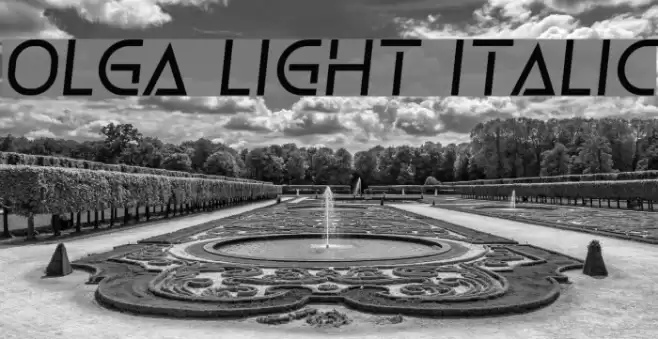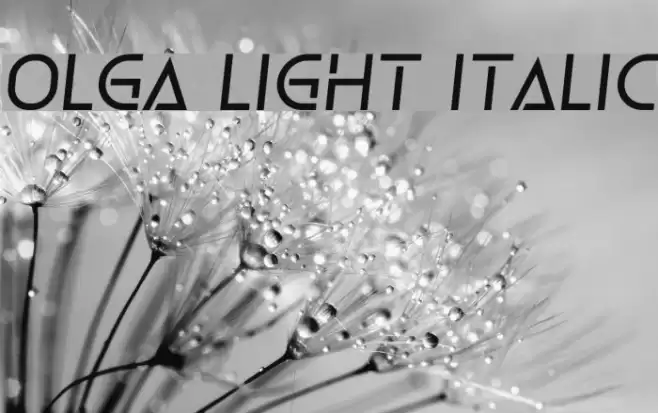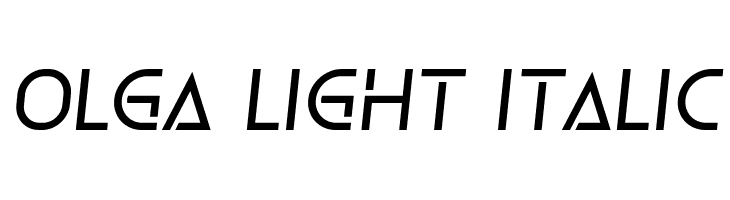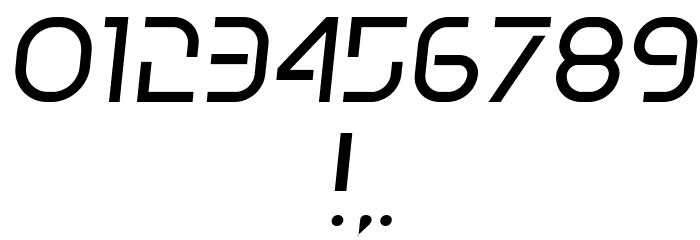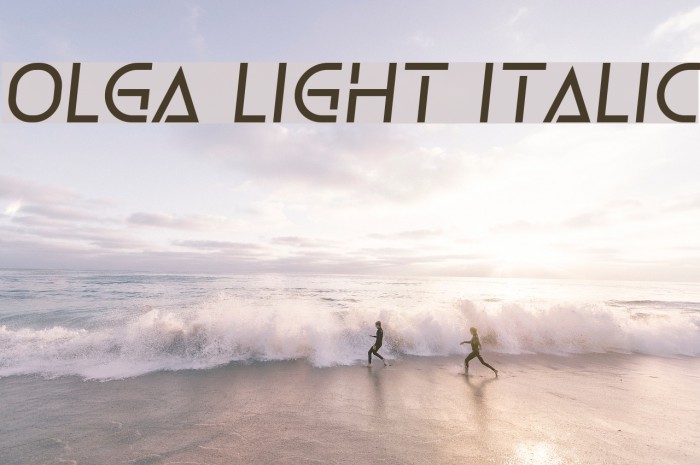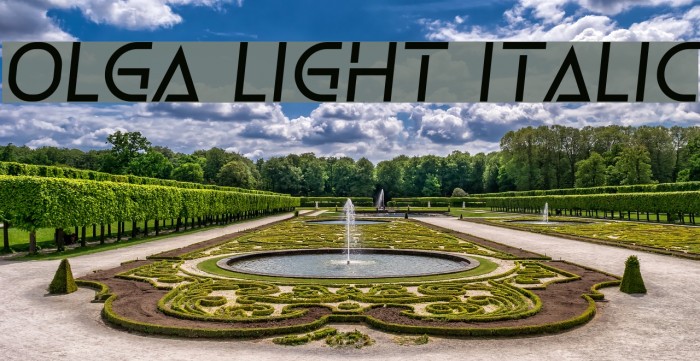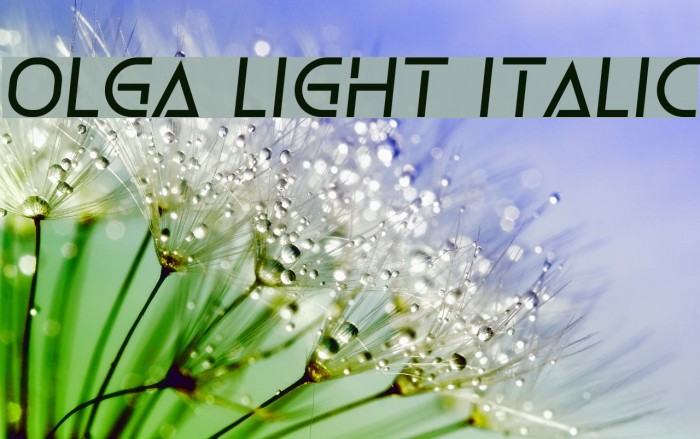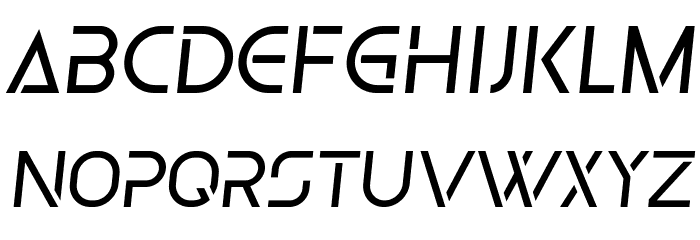
Olga Light Italic Font
Olga Light Italic Description
This font features a sleek, modern design with a distinct italic slant, giving it a dynamic and forward-moving appearance. The characters are crafted with precision, showcasing clean lines and a geometric structure. The uppercase and lowercase letters maintain a consistent style, with a slight variation in stroke width that adds subtle contrast. The numerals are designed to complement the alphabet, maintaining the same modern aesthetic. Special characters are included, providing versatility for various design needs. The overall look is contemporary and stylish, making it suitable for a range of creative projects.
A sleek, modern italic font with geometric precision and subtle contrast from Uncategorized fonts.
- Proposed Projects: Ideal for branding, advertising, and editorial design projects that require a modern and dynamic touch.
- Use Case: Headlines, Logos, Branding